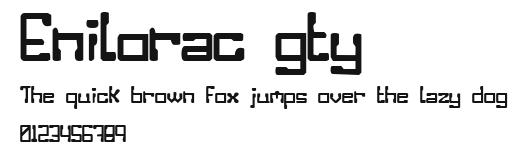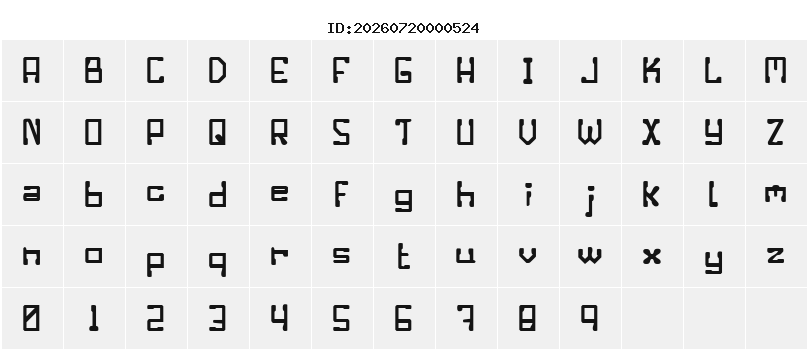
Enilorac gty Preview
About Enilorac gty.ttf
Enilorac gty.ttf is a modern, elegant sans-serif font designed for ultimate readability and visual harmony. Perfect for branding, headlines, web design, and print materials.